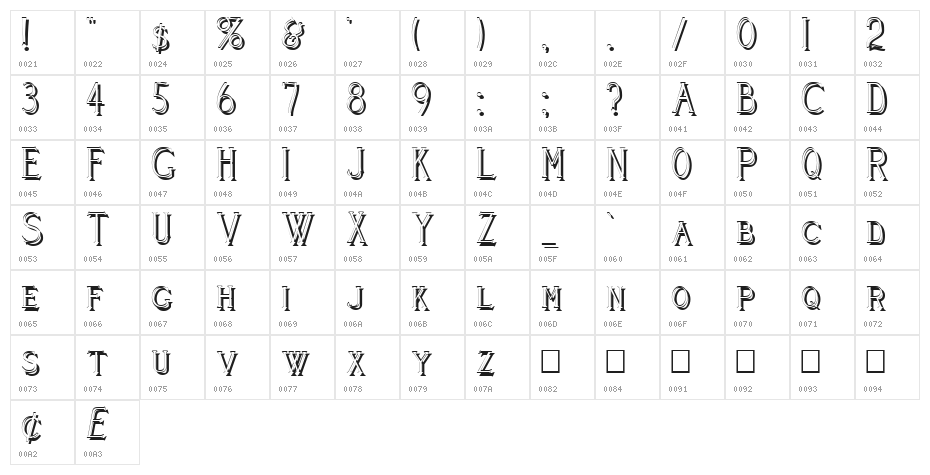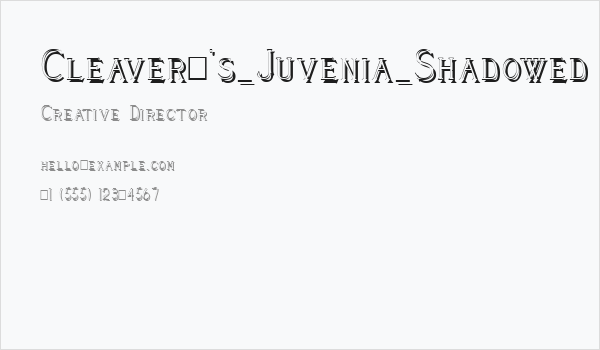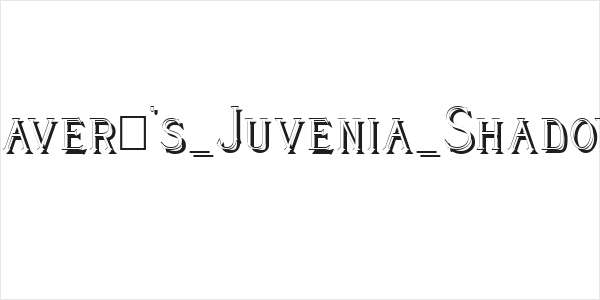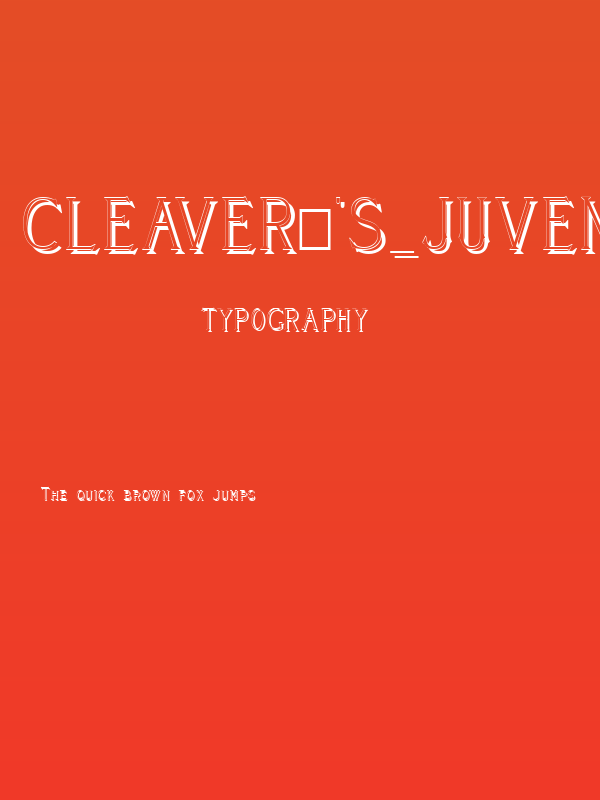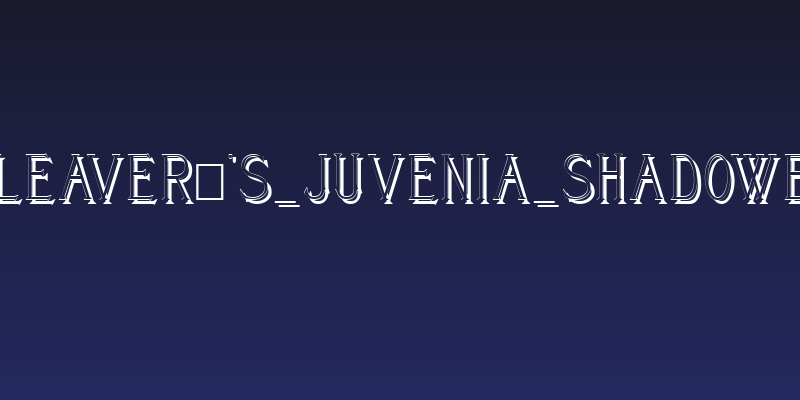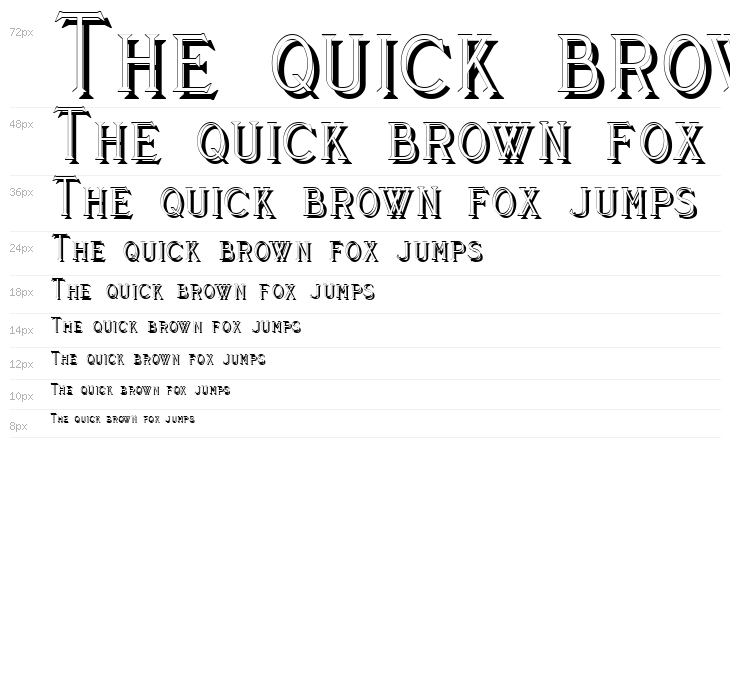
Cleaver's_Juvenia_Shadowed Font
Cleaver's_Juvenia_Shadowed Description
This font features a bold and striking design with a shadowed effect that adds depth and dimension to each character. The uppercase letters are prominently styled with sharp serifs and a three-dimensional shadow that gives a sense of movement and dynamism. The lowercase letters maintain the same boldness and shadowed style, ensuring consistency throughout. Numbers and special characters are equally well-crafted, making them stand out with their distinctive shadowing. The overall appearance is both classic and modern, suitable for making a strong visual impact.
| Overall Style | Classic, Decorative |
| Proposed Projects | Ideal for headlines, posters, branding, and any project requiring a strong visual impact. |